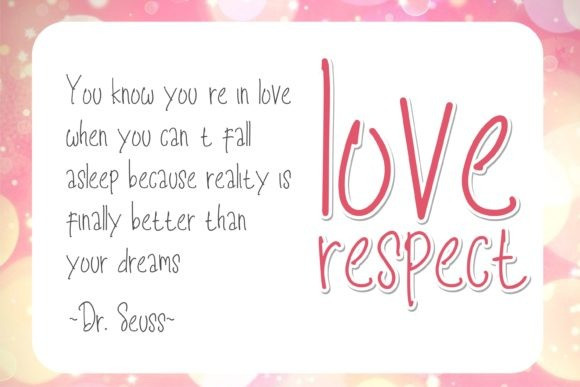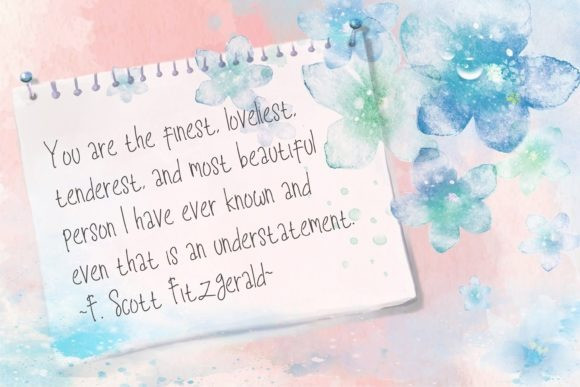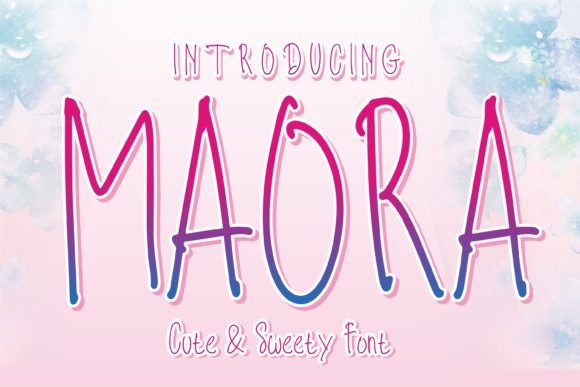
Maora Handwritten Font
Maora Handwritten Font is a cute, thin and friendly handwritten font. Suitable to a wide variety of designs due to its neat and simple style, this font has the potential to become your favorite go-to font, no matter the occasion!